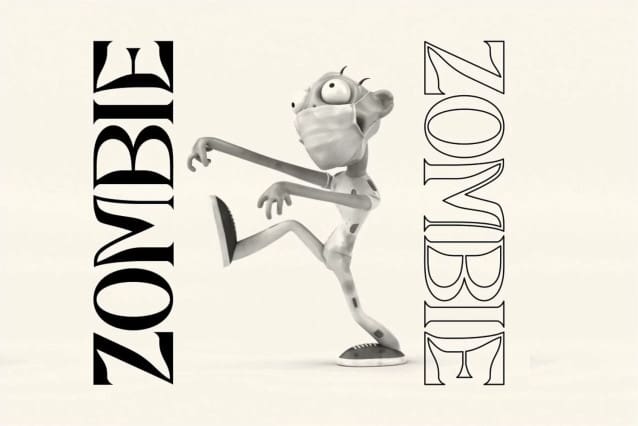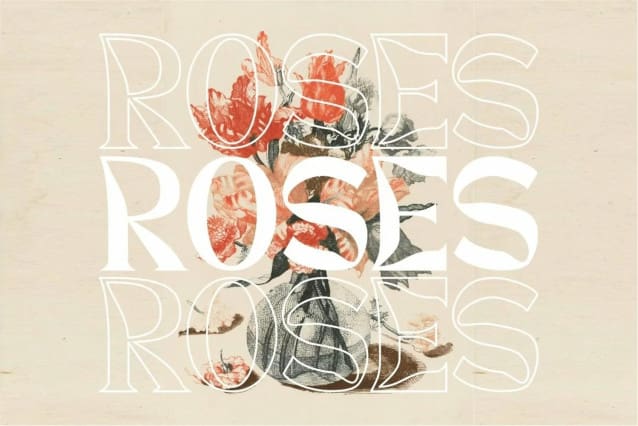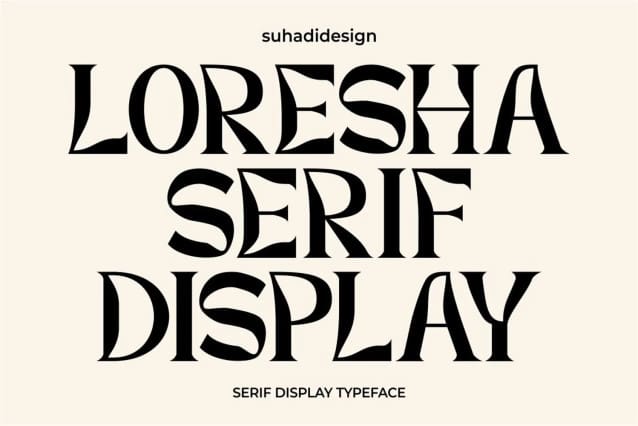
Loresha Serif Display Font
Loresha Serif Display font, is a serif font with a unique appearance. We made this font unique and easy to use. LoreshaSerif Display Font is a great choice for brands, brand names, branding, labels, mosaic designs, paintings, and other projects.